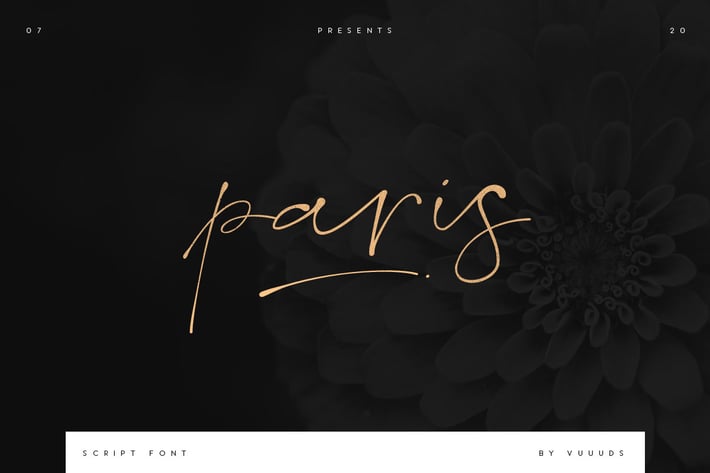
Paris Script Font
Paris is modern script font, every single letters have been carefully crafted to make your text looks beautiful. With modern script style this font will perfect for many different project ex: quotes, blog header, poster, wedding, branding, logo, fashion, apparel, letter, invitation, stationery, etc.